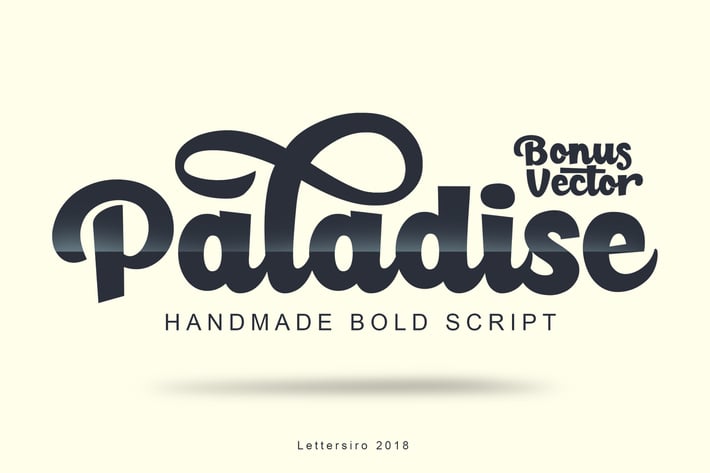
Paladise Font & Extras
We just launch our newest product. We made a playful font, so cool and so beauty, called Paladise Font.
This font is great for logo, poster, clothing, branding, party invitation, and many many other cool design projeects. Paladise comes with a loooot of alternate character, and also come with 26 bonus vectors.
Add more style to each font with OpenType Features - stylistic alternates, lowercase initial form and final form, ligatures, stylistic sets.
* Multilingual support - spread your message globally AÀÁÂÃÄÅCÇDÐEÈÉÊËIÌÍÎÏNÑOØÒÓÔÕÖUÙÜÚÛWYÝŸỲŸÆŒßÞþ